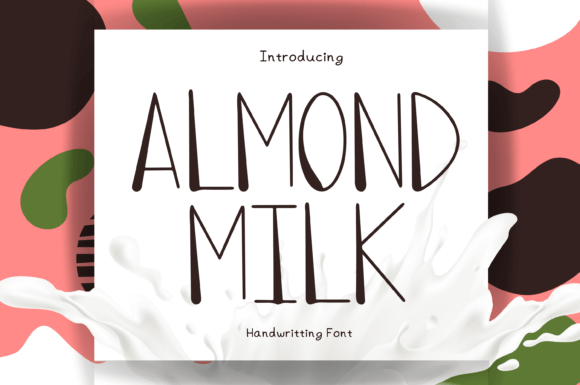
The Quest for the Perfect Font: How Almond Milk Stole My Heart
I’ll never forget the time I was working on a branding project for a trendy new cafe. I had the logo concept nailed, but the font just wasn’t cooperating. I scoured the internet for hours, trying to find the perfect match. That’s when I stumbled upon Almond Milk, a whimsical and clean handwritten font that instantly caught my eye. ✨ In this article, I’ll share my experience with Almond Milk, and how it’s become a staple in my design toolkit.
An Honest Review of Almond Milk
• ✨ Versatility: Almond Milk can easily be matched to an incredibly large set of projects, from branding and packaging to social media graphics and invitations.
• ✅ Clean and Legible: The font’s clean lines and simple shapes make it easy to read, even at small sizes.
• 💕 Aesthetic Appeal: Almond Milk has a unique, whimsical charm that adds a touch of personality to any design.
While Almond Milk is an amazing font, it’s not perfect. ⚠️ Here are a few things to keep in mind:
• 🤔 Limited Formality: Almond Milk is a casual, handwritten font, so it may not be the best choice for super formal or corporate projects.
• ⚠️ Glyph Limitations: While Almond Milk has a great range of characters, it may not have every special glyph or symbol you need.
The Story Behind Almond Milk
Almond Milk was designed by a talented type designer who wanted to create a font that was both clean and playful. Inspired by the simplicity of handwritten notes and the elegance of modern typography, Almond Milk was born. 💡 While the designer’s story is fictional, it’s easy to imagine the care and attention that went into crafting this beautiful font.
Q: What is Almond Milk font?
Almond Milk is a whimsical and clean handwritten font, perfect for a wide range of creative projects.